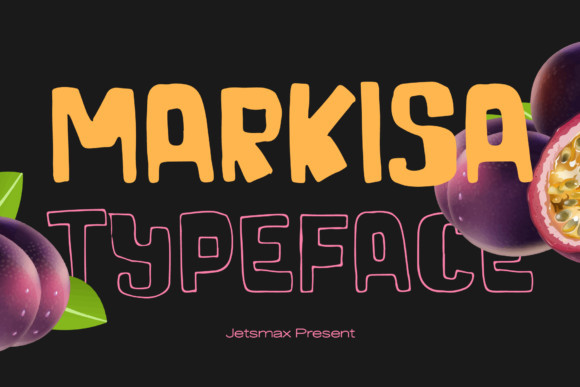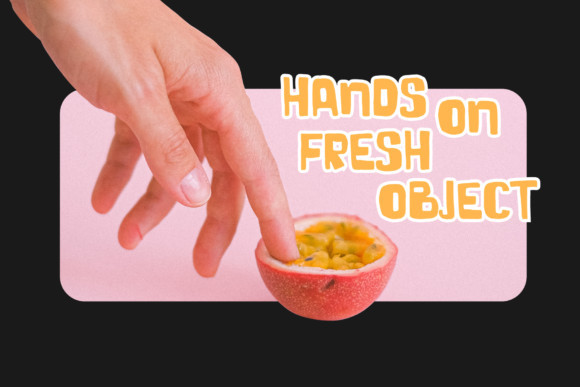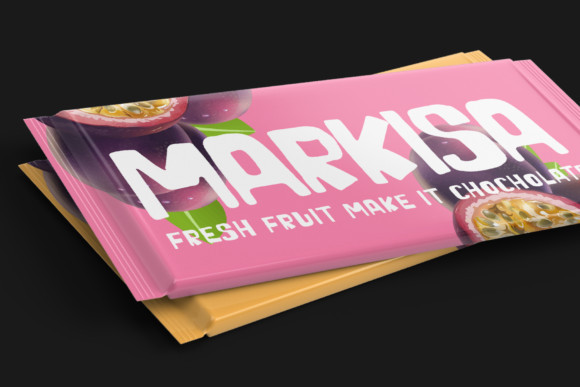
Markisa Font
Markisa is a cool display font that is readable, bold and organic. Whether you are using it for cartoon-related designs, children’s games, quotes, titles, brand names, book covers, posters, or just any creation that requires a touch of beauty, this font is a great choice.